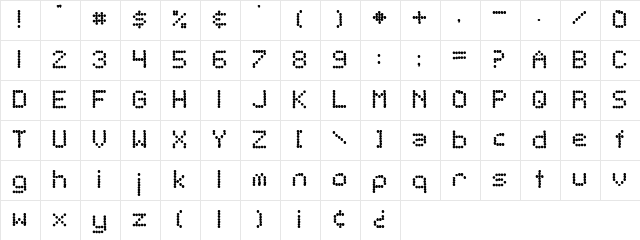
Telegraphic Bold Free Font
Telegraphic Bold
Telegraphic Family
Telegraphic Bold
Design Context for Telegraphic
Telegraphic is a composed and adaptable typeface that performs quietly and consistently across a wide range of design contexts. Its bold stroke weight gives it real presence on the page.